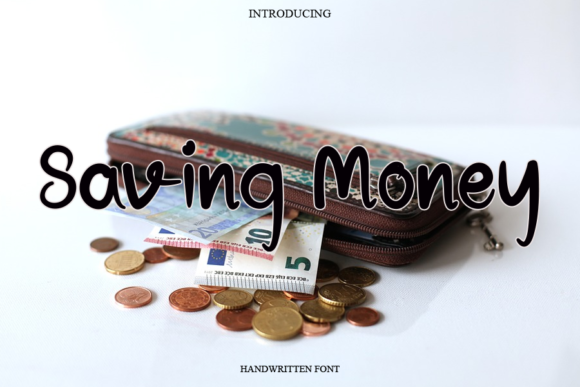
**Saving Money: The Perfect Font for Captivating Your Audience**
Introducing Saving Money, the enchanting handwritten font crafted to ignite your creativity and leave a lasting impression. Immerse yourself in a world of captivating designs that evoke a sense of warmth, authenticity, and effortless style.
**A Treasury of Creative Possibilities**
With its charming script style, Saving Money is an adaptable gem that seamlessly complements an array of design concepts. Whether you're crafting a captivating brochure, designing an eye-catching poster, or adding a touch of whimsy to your social media posts, Saving Money will elevate your creations to new heights.
**Unleash Your Inner Artist**
Let your imagination soar as you explore the endless possibilities that Saving Money unlocks. Its free-flowing strokes and organic curves lend an air of sophistication to any project, inviting your audience to connect on a deeper level.
**Captivating and Memorable**
Saving Money possesses an undeniable charm that lingers in the minds of your audience. Its unique character and readability ensure that your message will be conveyed with clarity and impact, leaving a lasting impression that sets you apart from the crowd.
**Personalize Your Design Journey**
With Saving Money at your fingertips, you're empowered to infuse your personal style into every design. Its versatility allows you to experiment with different colors, sizes, and effects, creating a truly customized experience that reflects your unique vision.
**Join the Saving Money Revolution**
Embrace the power of Saving Money and watch your designs transform into captivating masterpieces. Its timeless elegance and versatility will become your secret weapon, enabling you to create unforgettable impressions that inspire and engage your audience.
**Embrace the Savings, Unleash Your Creativity**
Don't settle for ordinary fonts that fade into the background. Choose Saving Money and embark on a creative adventure that will leave your audience mesmerized. Its affordability makes it an investment in your design prowess, ensuring that your creations stand out and make a statement.